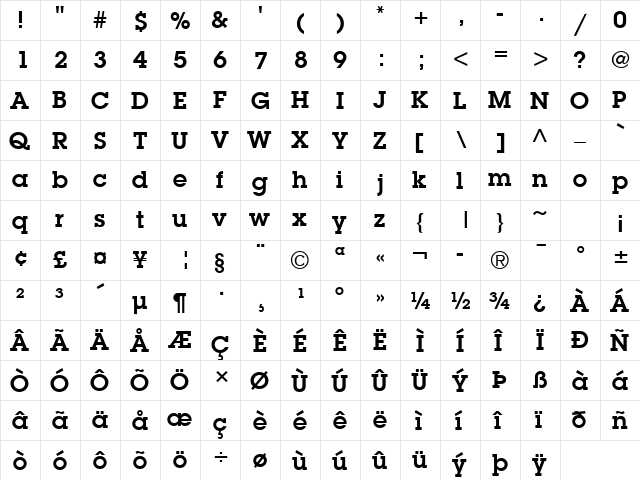
Lubalin Graph Bold
Design Context for Lubalin Graph Typeface
Lubalin Graph offers clean, dependable letterforms without strong stylistic allegiance, making it a practical choice for designers who need flexibility. Its bold stroke weight gives it real presence on the page.
Pro Tip: Use Lubalin Graph in both headline and body roles to test its range before committing to a single application.